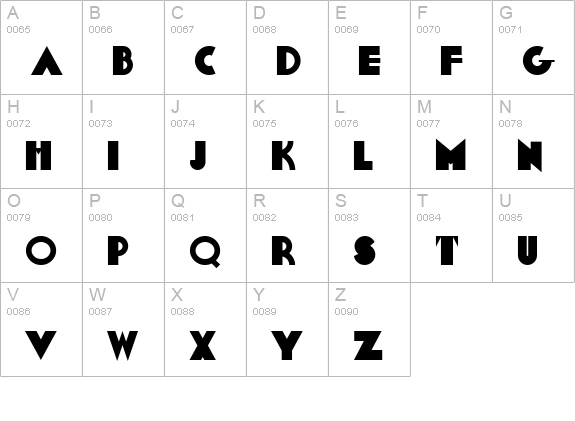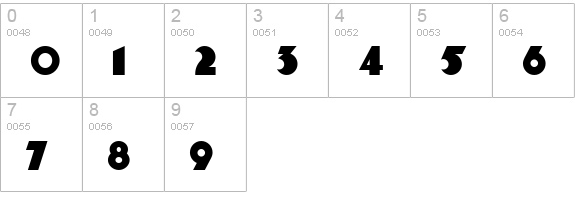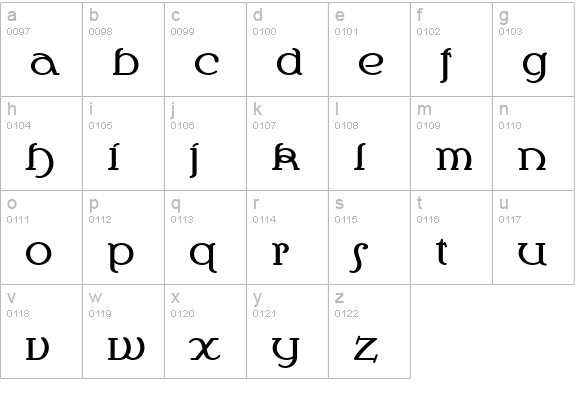
ChalkAndCheeseNF Medium Font Details
ChalkAndCheeseNF Medium is a balanced, medium-weight variant in the ChalkAndCheeseNF typeface family \xE2\x80\x94 well suited to sub-headlines, navigation, and balanced editorial work.
ChalkAndCheeseNF Medium is a charming and versatile font that brings a unique touch to any design project. The medium weight strikes the perfect balance between boldness and elegance, making it suitable for a wide range of applications. This font features a delightful mix of playful curves and straight lines, creating a dynamic and eye-catching look. Best of all, ChalkAndCheeseNF Medium is available for free download at FontsMarket.com, making it accessible to all designers and creatives. Whether you're working on a poster, branding, or any other project, this font will add a touch of personality and style. Enhance your designs with the distinctive charm of ChalkAndCheeseNF Medium and make a statement with your typography.